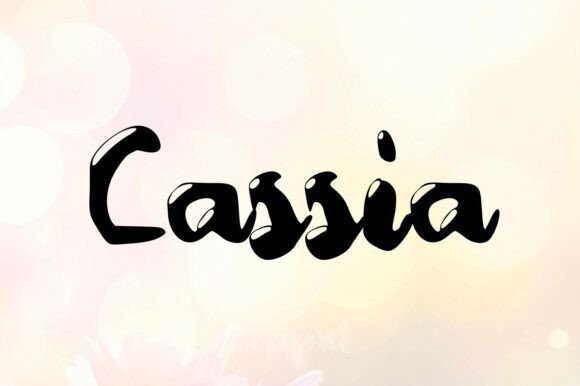
Introduction to Cassia Font
Welcome to the enchanting world of Cassia, a beautifully sculpted script font resonating with contemporary grandeur and captivating allure, inherently embodying a touch of class.
Its eloquent sweeps and nimble transitions between letters convey a profound sense of authentic craftsmanship Each usage emanates warmth and passion that feels bespoke, original, and authentic.
Key Features of Cassia Font